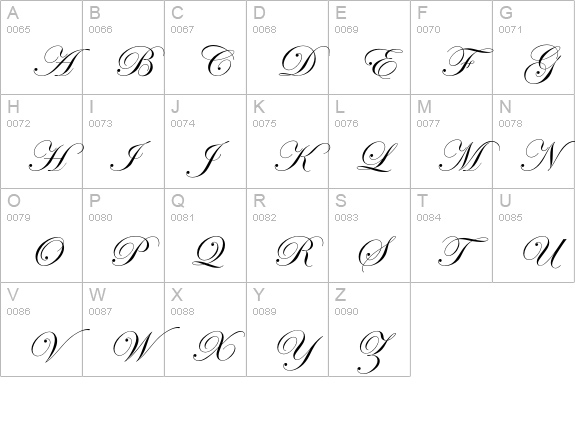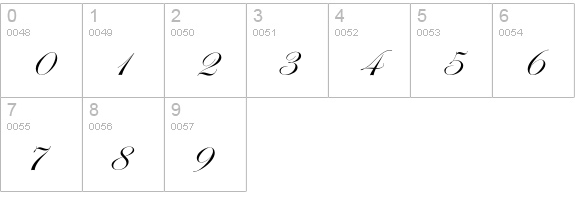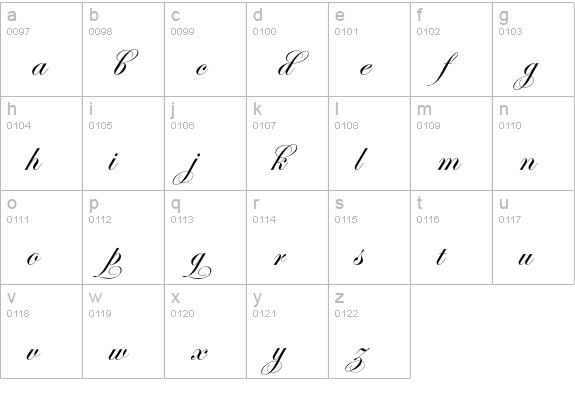
EdwardianScriptEF-RegularA Font Details
EdwardianScriptEF-RegularA font is a beautiful and elegant script typeface that embodies the essence of the Edwardian era. It exudes a sense of sophistication and refinement, making it perfect for adding a touch of class to any design project. This font features delicate, flowing lines and intricate details that give it a unique and timeless appeal. Each letter is meticulously crafted, with graceful curves and swashes that add an air of elegance and charm. Whether you are designing wedding invitations, creating a logo, or designing a poster, EdwardianScriptEF-RegularA font will elevate your design to new heights. Its versatility allows it to be used in a variety of contexts, from formal to whimsical, and everything in between. And the best part? EdwardianScriptEF-RegularA font is completely free to download! You can get your hands on this stunning font at FontsMarket.com, where you will find a vast collection of high-quality fonts for all your design needs. So why wait? Enhance your designs with the timeless beauty of EdwardianScriptEF-RegularA font and make a lasting impression. Download it for free today at FontsMarket.com and let your creativity soar.